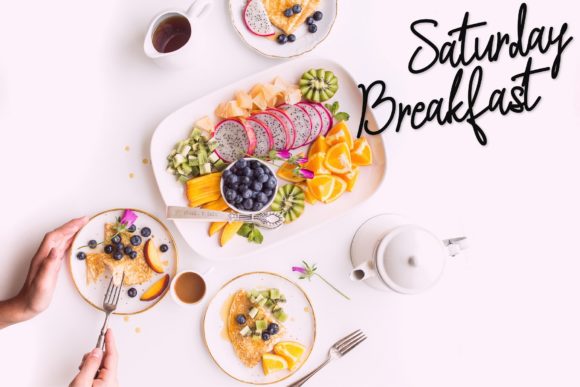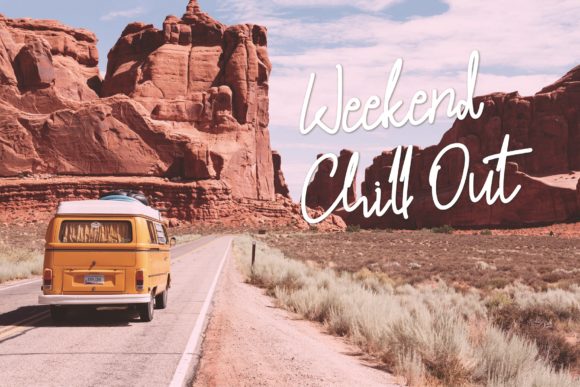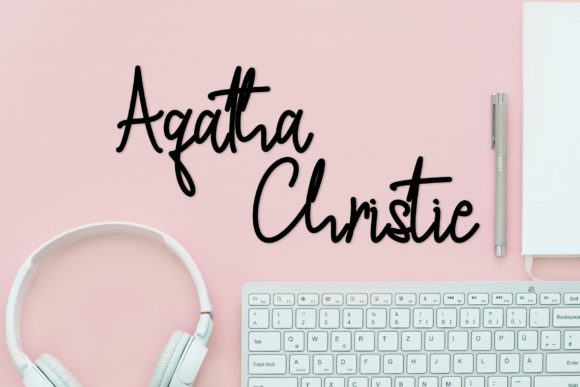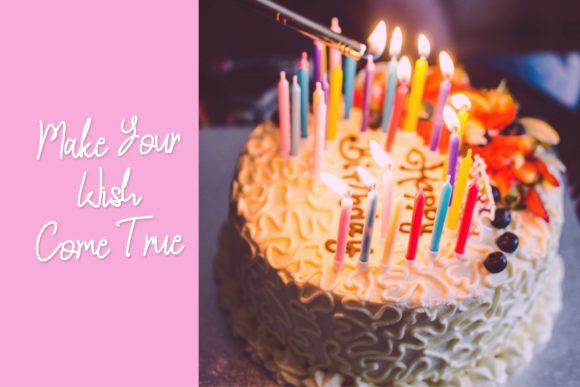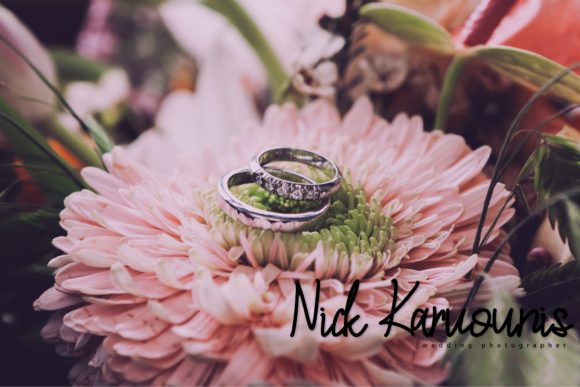
A Question Font: The Quirky Handwritten Font to Elevate Your Creativity
Are you tired of using the same old fonts for your creative projects? Do you want to add a touch of uniqueness and personality to your designs? Look no further than A Question Font, a flowing, unique, and quirky handwritten font that’s sure to turn any creative idea into a standout!
What is A Question Font?
A Question Font is a beautiful, handcrafted font that’s perfect for designers, crafters, and anyone looking to add a personal touch to their projects. This dazzling font features a flowing, cursive script with a quirky and playful vibe that’s sure to capture attention. With its unique letterforms and charming imperfections, A Question Font is the perfect choice for anyone looking to add a touch of whimsy to their designs.
Key Features of A Question Font
So, what makes A Question Font so special? Here are just a few of its key features:
- Unique and Quirky: A Question Font features a truly one-of-a-kind design that’s sure to set your projects apart from the crowd.
- Flowing Script: The font’s flowing script makes it perfect for creating beautiful, handwritten-style text that’s perfect for cards, invitations, and more.
- Handcrafted: A Question Font is carefully handcrafted to ensure that every letterform is unique and full of character.
- Perfect for Creative Projects: Whether you’re a designer, crafter, or DIY enthusiast, A Question Font is the perfect choice for any creative project.
How to Use A Question Font
So, how can you use A Question Font in your projects? Here are just a few ideas to get you started:
- Invitations and Cards: Use A Question Font to create beautiful, handwritten-style invitations and cards that are sure to impress.
- Branding and Packaging: Add a touch of personality to your branding and packaging with A Question Font’s unique and quirky design.
- Social Media Graphics: Use A Question Font to create eye-catching social media graphics that are sure to stand out.
- DIY Projects: Add a personal touch to your DIY projects, such as crafts, scrapbooking, and more, with A Question Font.
Why Choose A Question Font?
So, why should you choose A Question Font for your next project? Here are just a few reasons:
- Unique Design: A Question Font features a truly unique design that’s sure to set your projects apart from the crowd.
- Easy to Read: Despite its quirky design, A Question Font is easy to read and perfect for use in a variety of projects.
- Versatile: A Question Font is perfect for use in a wide range of projects, from invitations and cards to branding and packaging.
- High-Quality: A Question Font is a high-quality font that’s carefully crafted to ensure that every letterform is perfect.